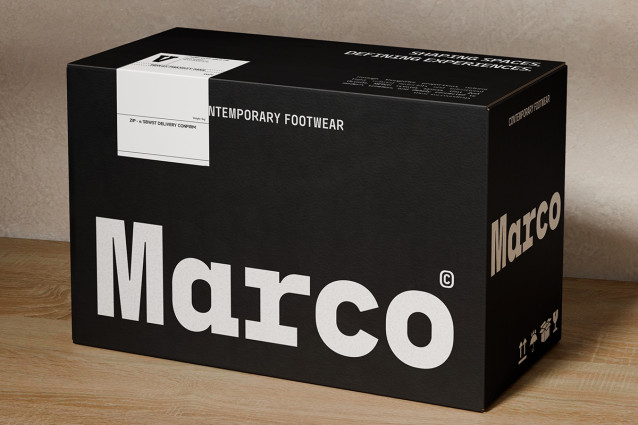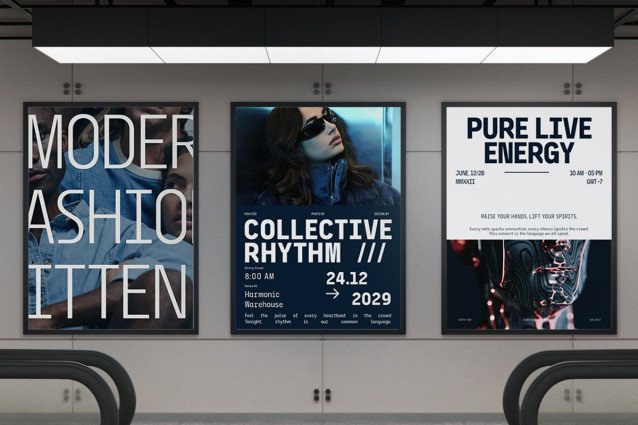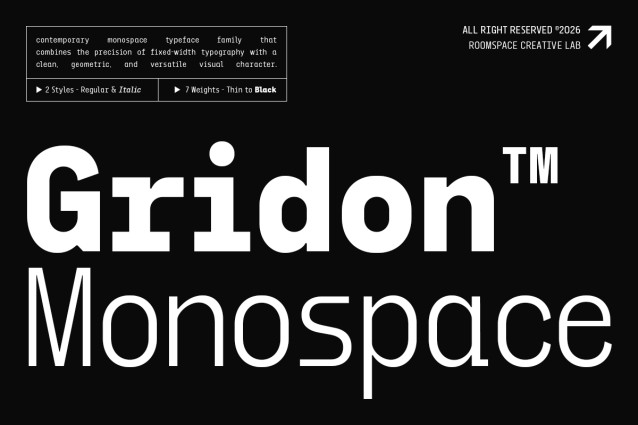
Gridon – Monospace Geometric Display Typeface Font
Gridon is a contemporary geometric monospace typeface designed with fixed-width proportions, structured letterforms, precise spacing, and a distinctive technical character. Its consistent construction creates a clear typographic rhythm that works especially well for modern digital, editorial, branding, and information-based design projects.
Gridon is designed for both display and functional use, making it suitable for logos, branding, editorial layouts, posters, packaging, signage, wayfinding, digital interfaces, technology graphics, transportation systems, fashion identities, headlines, advertising, social media designs, and other typography-focused projects. Its wide range of weights allows you to create clear hierarchy from lightweight information to bold display compositions.
With its geometric structure and fixed-width character, Gridon offers a versatile typographic system for creating contemporary visual identities, technical layouts, digital graphics, and structured editorial compositions. The family includes Regular and Italic styles with 9 weights from Thin to Black, providing flexibility across different design applications.